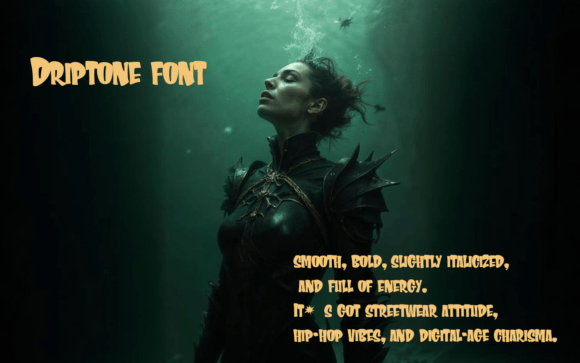
Introducing Driptone Font: The Ultimate Typeface for Creators on the Move
In the world of typography, fonts are more than just a means of communication – they’re an expression of style, attitude, and creativity. For creators, artists, and designers, finding the right font can make all the difference in bringing their vision to life. That’s where Driptone comes in – a bold, sleek, and modern typeface that’s born on the coast and built to break the feed.
What is Driptone Font?
Driptone is a digital typeface that embodies the spirit of street culture and urban style. With its slick curves, bold presence, and digital drip, this font is designed for creators on the move – those who need a font that can keep up with their fast-paced and dynamic lifestyle. Whether you’re working on a merch drop, mixtape cover, or any other creative project, Driptone is the perfect choice.
The Inspiration Behind Driptone
Driptone’s inspiration comes from the streets, where style and attitude meet. The font’s creators wanted to design a typeface that would capture the essence of urban culture – its energy, its swagger, and its creativity. With Driptone, they’ve succeeded in creating a font that’s not just a means of communication, but a statement piece.
Key Features of Driptone Font
So, what makes Driptone stand out from the rest? Here are some of its key features:
- Slick Curves: Driptone’s curves are smooth, sleek, and modern. They’re perfect for creating eye-catching headlines, titles, and logos.
- Bold Presence: This font has a bold and confident presence that’s hard to ignore. It’s perfect for making a statement and grabbing attention.
- Digital Drip: Driptone’s digital drip gives it a unique and edgy feel. It’s perfect for adding a touch of urban style to your designs.
- Flexibility: Driptone is a versatile font that can be used for a wide range of creative projects – from merch drops to mixtape covers, and more.
Who is Driptone Font for?
Driptone is designed for creators on the move – artists, designers, musicians, and anyone who needs a font that can keep up with their fast-paced lifestyle. Whether you’re a professional designer or a DIY creative, Driptone is the perfect choice.
How to Use Driptone Font
Using Driptone is easy. Here are some tips to get you started:
- Pair it with other fonts: Driptone works well with other fonts, so feel free to experiment with different combinations.
- Use it for headlines: Driptone’s bold presence makes it perfect for headlines and titles.
- Add a digital touch: Use Driptone’s digital drip to add a touch of urban style to your designs.
The Benefits of Using Driptone Font
So, why choose Driptone over other fonts? Here are some benefits:
- Unique style: Driptone has a unique and edgy style that’s hard to find in other fonts.
- Flexibility: Driptone can be used for a wide range of creative projects.
- Easy to use: Driptone is easy to use and pairs well with other fonts.
In conclusion, Driptone is a game-changing typeface that’s born on the coast and built to break the feed. With its slick curves, bold presence, and digital drip, this font is perfect for creators on the move. Whether you’re working on a merch drop, mixtape cover, or any other creative project, Driptone is the perfect choice. So, turn the volume up and flex your style with Driptone – the ultimate typeface for creators.
Get Ready to Turn the Volume Up with Driptone
Are you ready to take your designs to the next level with Driptone? With its unique style, flexibility, and ease of use, this font is sure to become a favorite among creators. So, don’t wait – get ready to turn the volume up with Driptone and make a statement with your designs.
Driptone Font – The Perfect Choice for Creators
Driptone Font – Born on the coast. Built to break the feed.